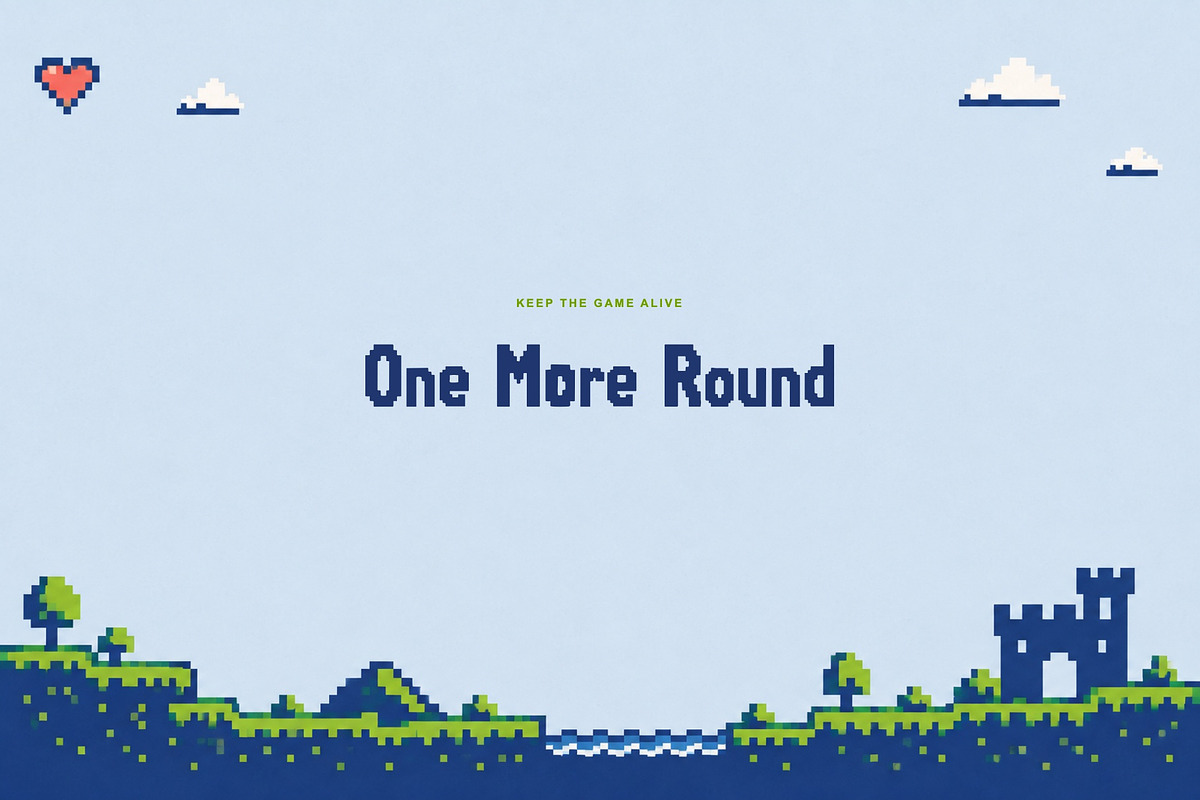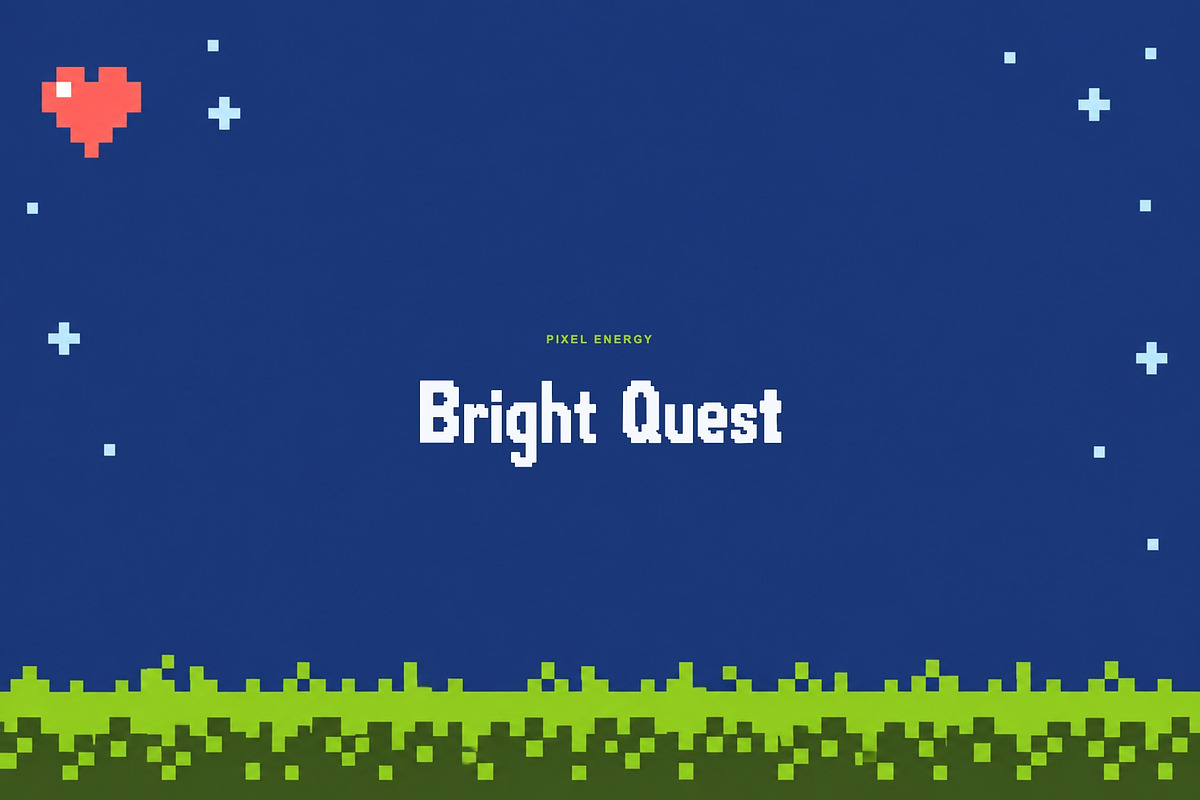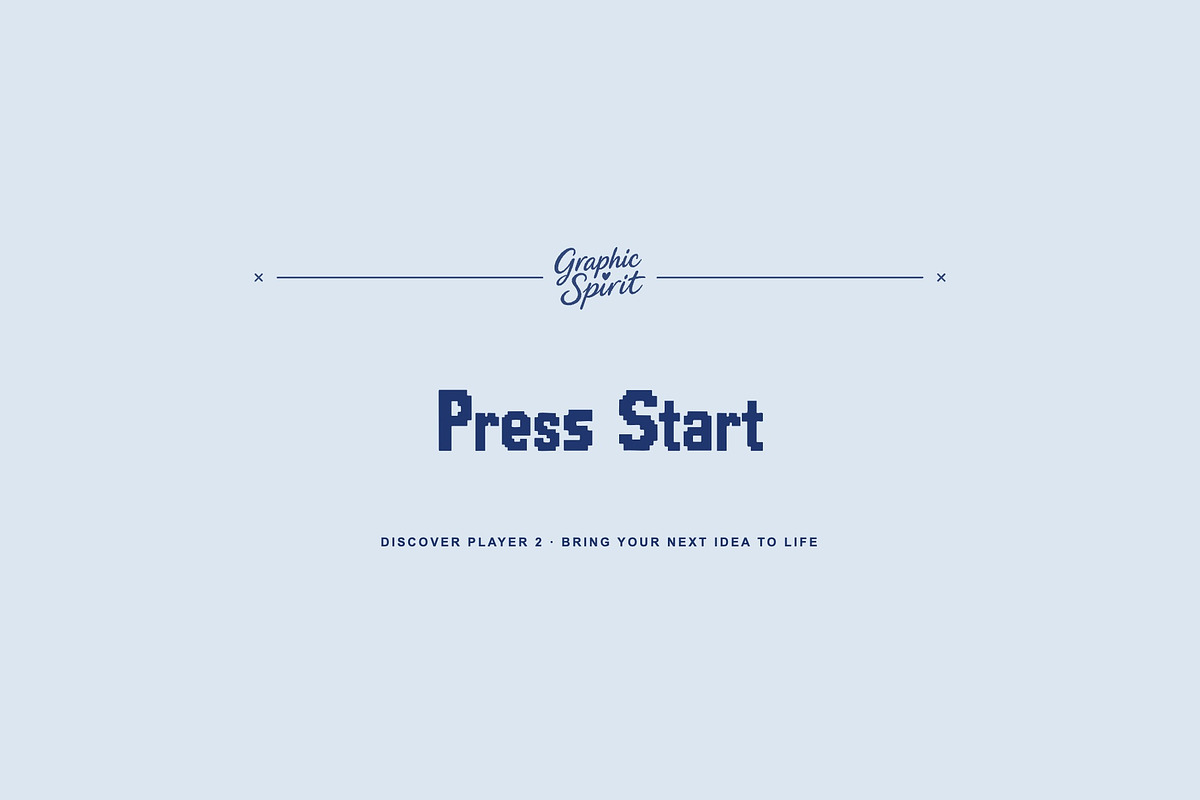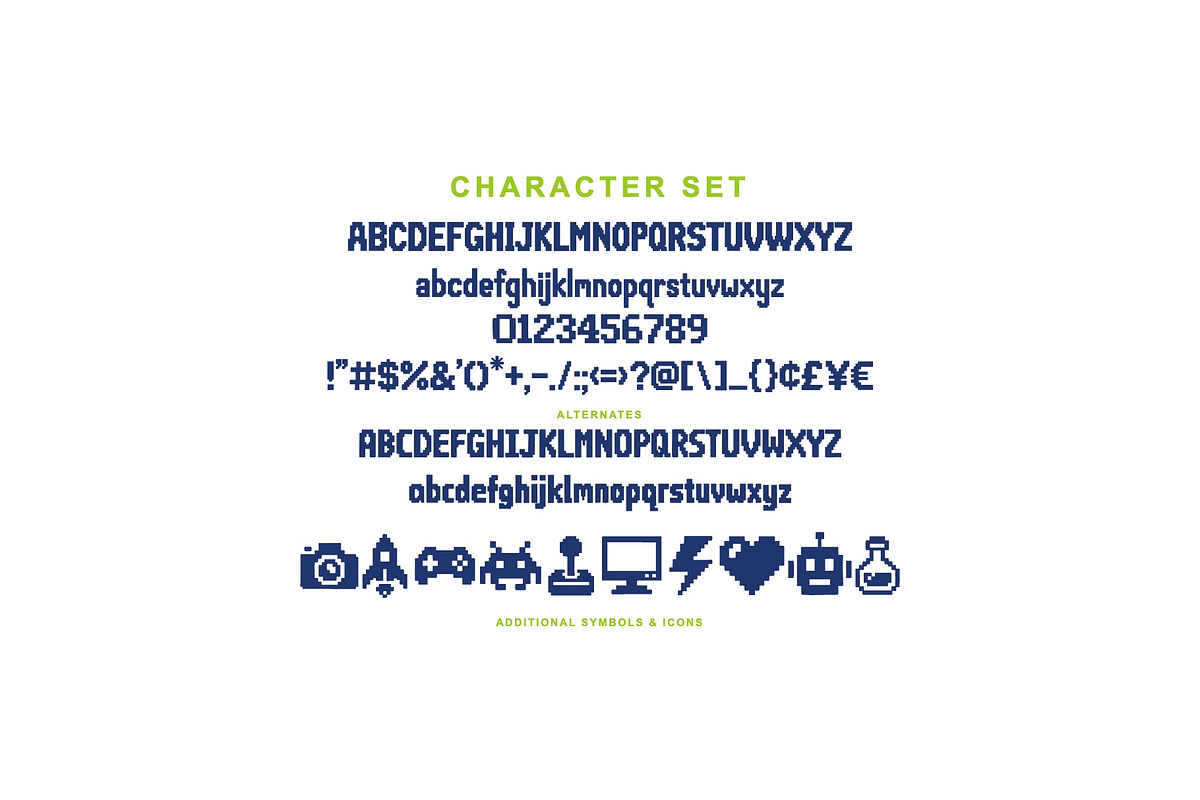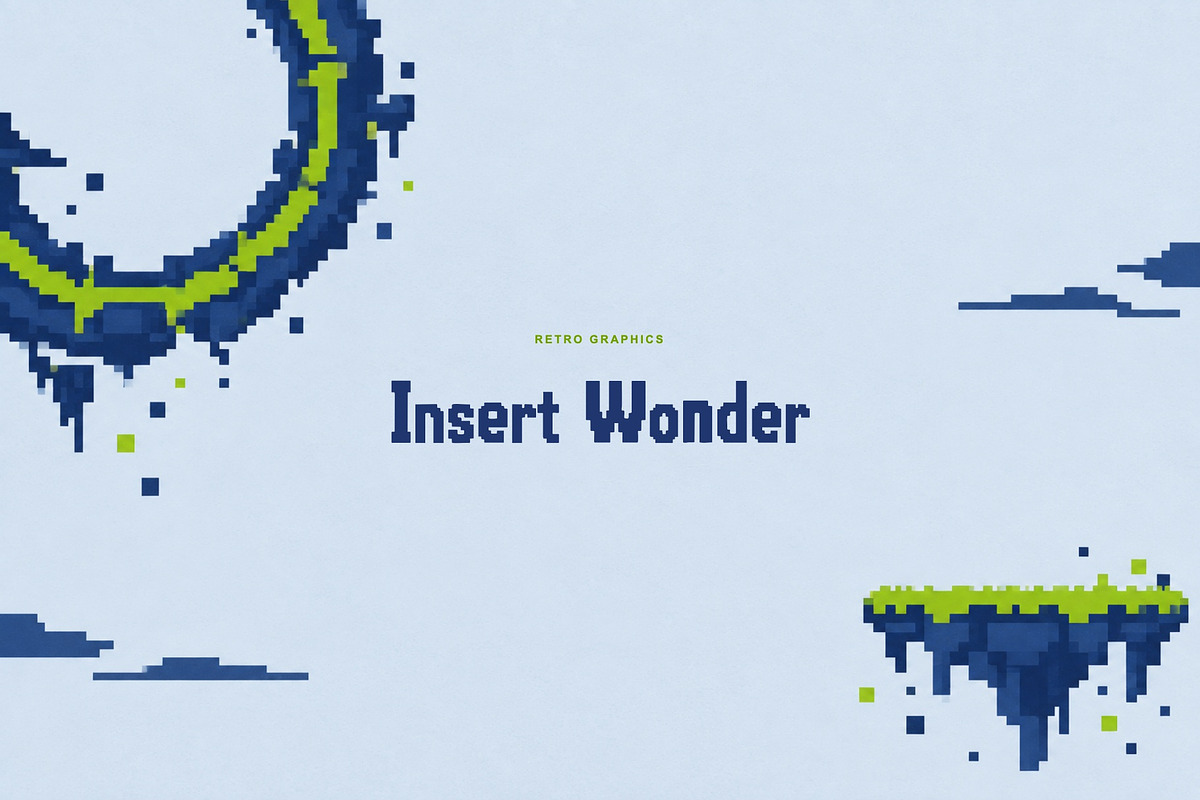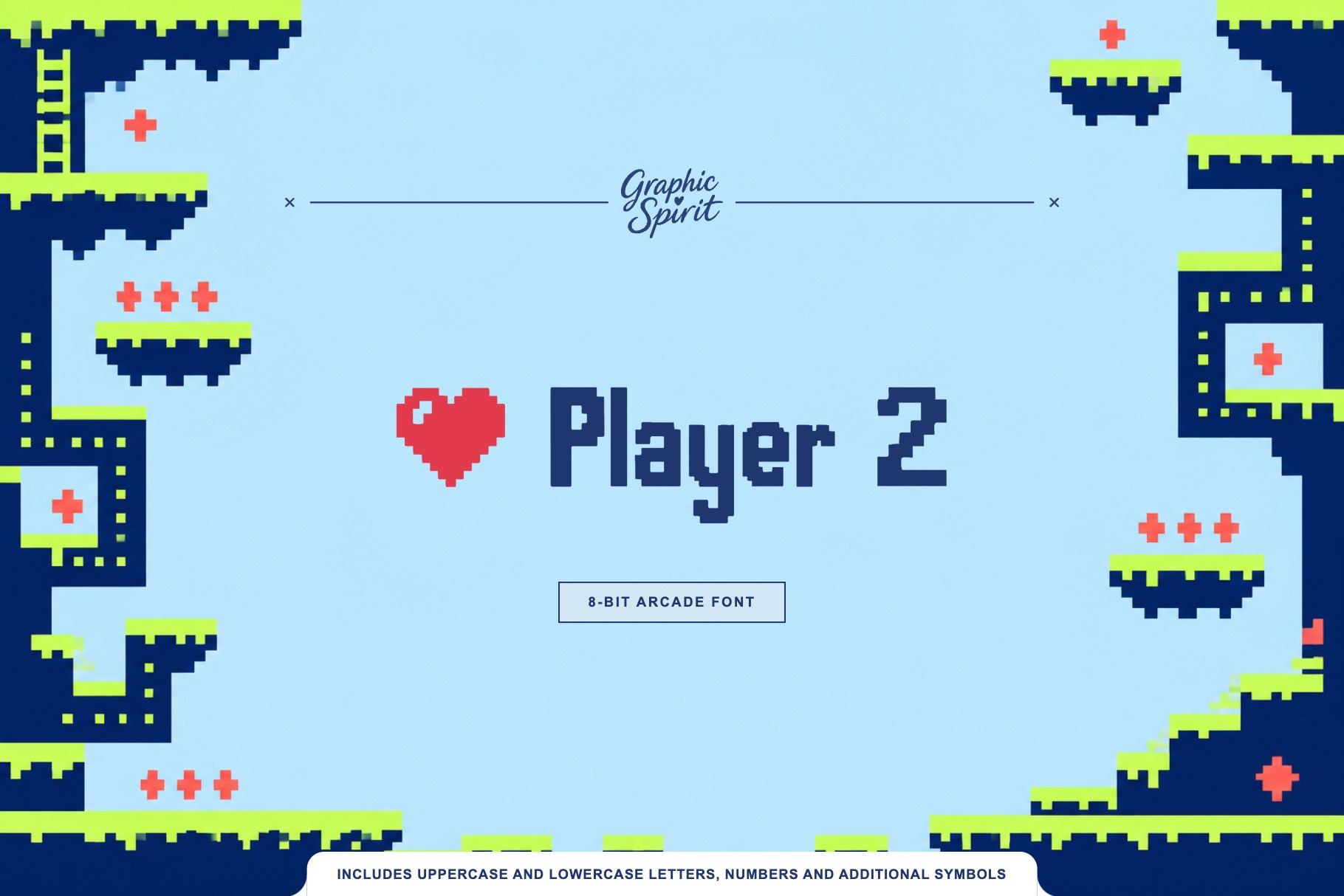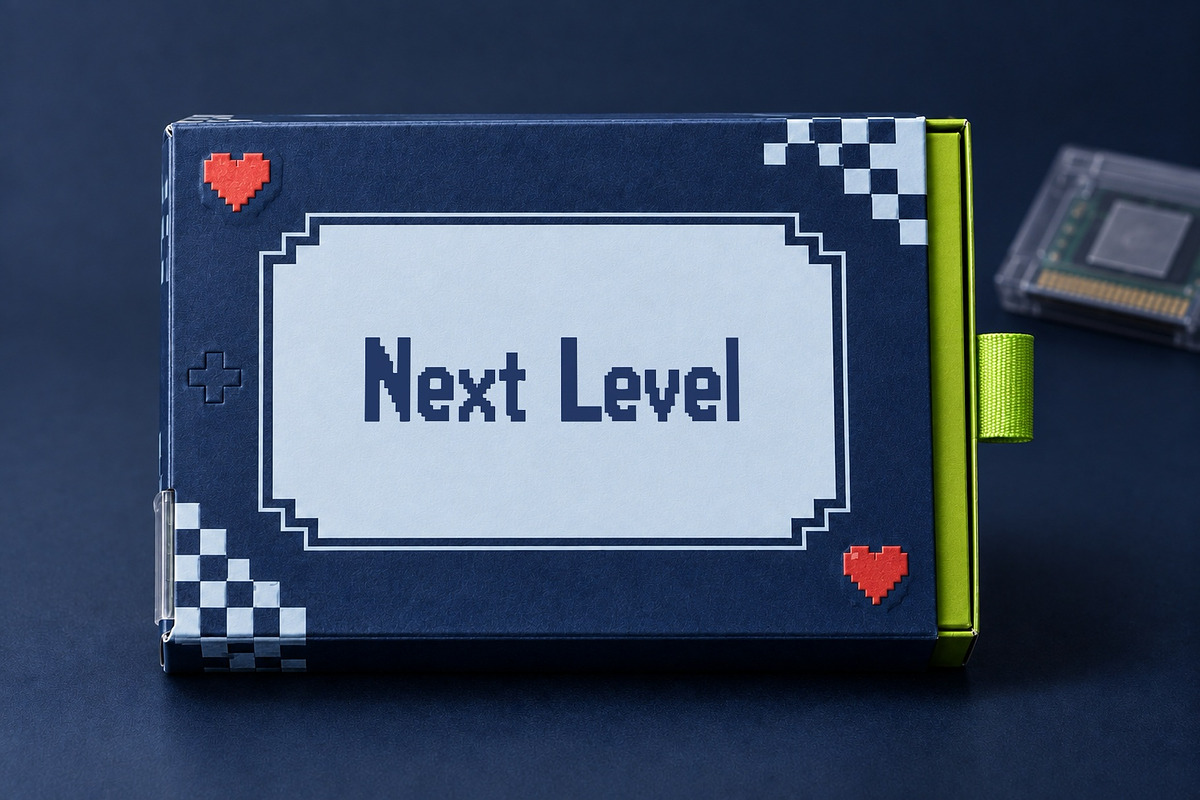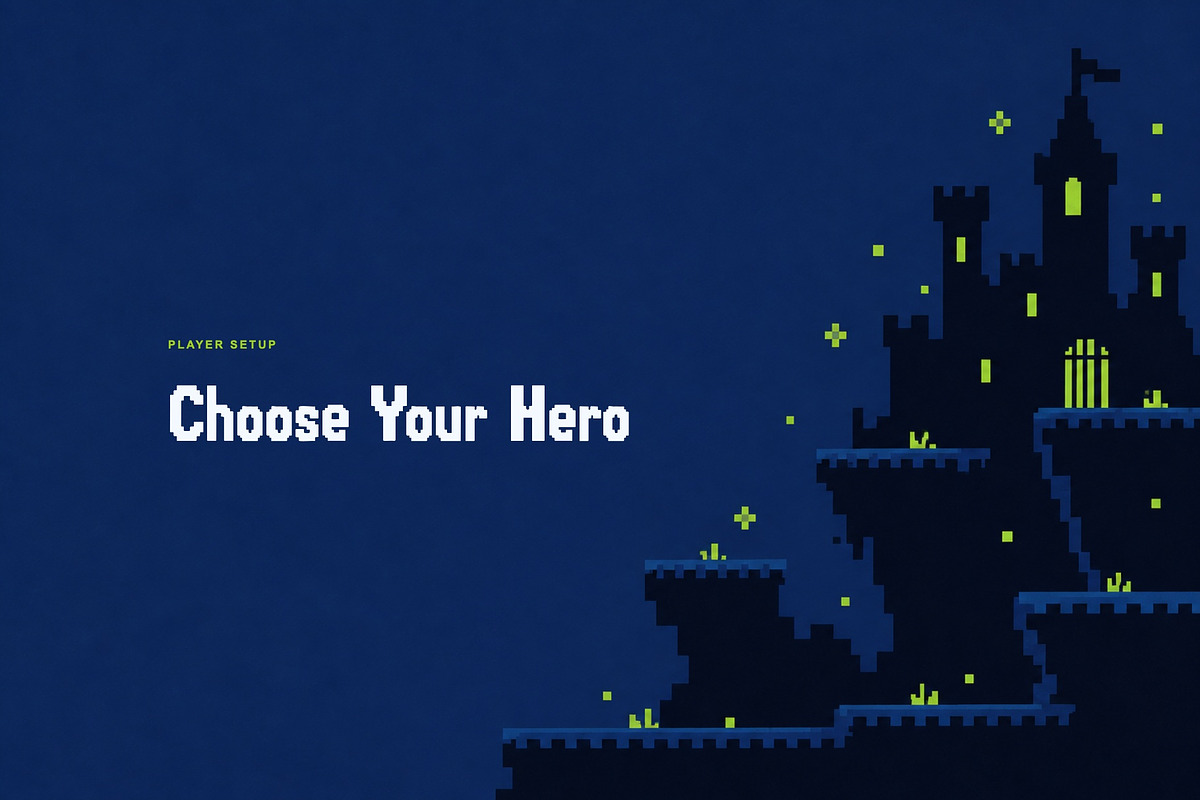
Player 2 Retro Arcade Pixel Font
🎮 🕹️ 👾 ✨ Player 2 is a 8-bit arcade display shaped by bright game nostalgia and clear screen-ready impact. It was created for designers and independent brands looking for expressive display typography that feels specific rather than generic.
🎨 The font works beautifully across games, streaming graphics, posters, merchandise, user interfaces. Use it for a confident headline, a memorable product name, or a typographic accent that ties a visual identity together. 💫
🌟 Best for:
- 🎮 Games
- 🕹️ Streaming Graphics
- 👾 Posters
- 🎮 Merchandise
- 🕹️ User Interfaces